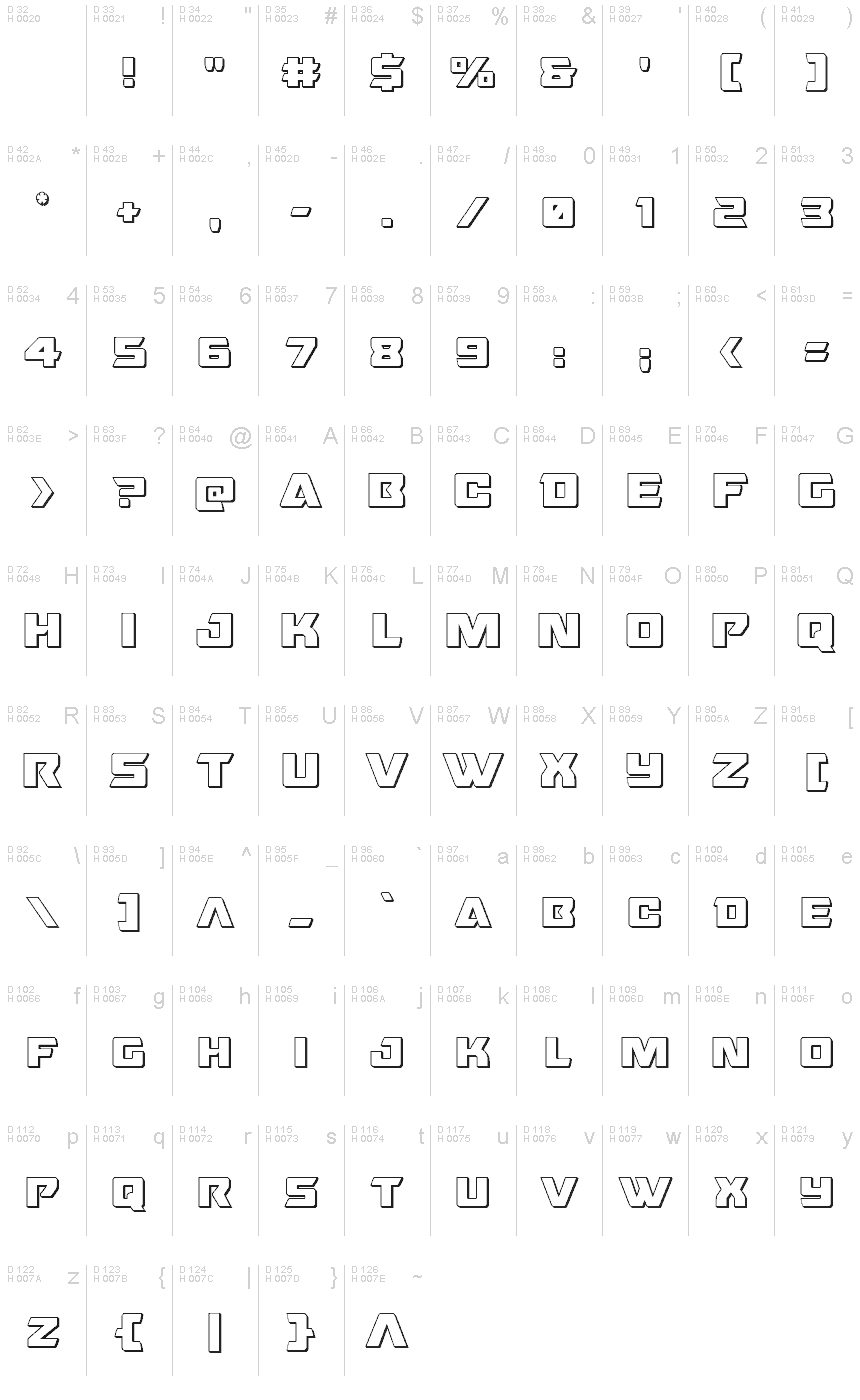
Oceanic Drift 3D Regular
Oceanic Drift 3D Regular is a bold, expansive font that exudes a futuristic elegance. Its 3D effect creates a striking visual depth, lending a sense of dimension and movement to the letters.
The design's sharp, angular edges evoke a sleek, high-tech aesthetic, perfectly suited for sci-fi, cyberpunk, or modern-minimalist branding and titling. This versatile font can lend a sense of cutting-edge sophistication to a wide range of applications, from digital user interfaces to large-scale signage and eye-catching headlines.
Its distinctive style and strong presence make Oceanic Drift 3D Regular an impactful choice for designers seeking to convey a vision of the future.